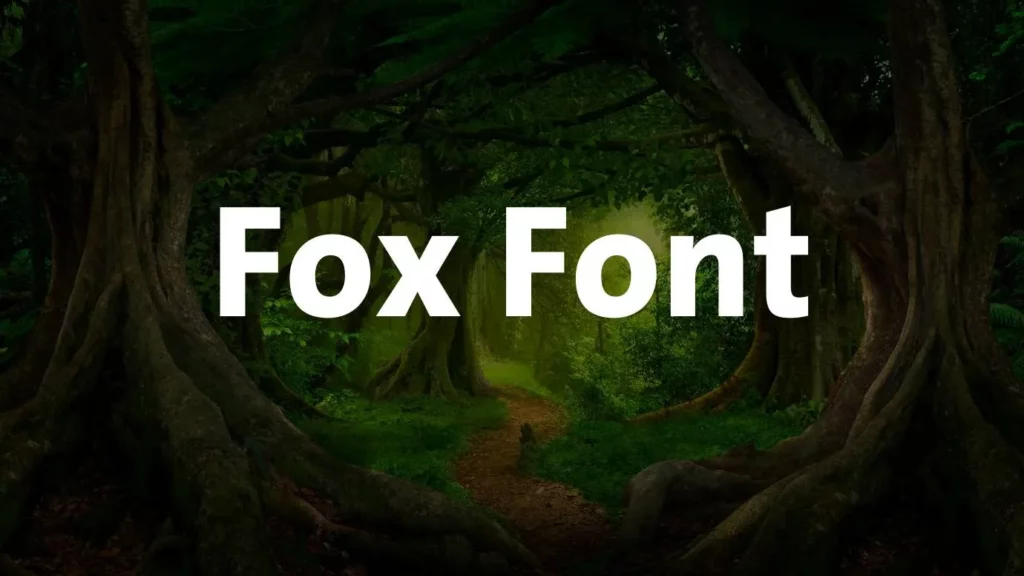
Display designs and thin corners can be created with this stunning piece. The designs are very stylish of this font. This typeface style also looks very close
Fox Logo Font typeface has special letters with an elegant look that are very useful for designers. Because of the strong and unique characters, it is often used for titles and headlines. This bold and sturdy font belongs to the Sans- Serif Font family. You can download this font in OTF and TTF file versions.
Display designs and thin corners can be created with this stunning piece. The designs are very stylish of this font. This typeface style also looks very close to the public sans font.
It comes in a unique weight, making it suitable for a variety of designs. Designers can create text graphics and name designs using its generator tool. Also, its unique text style makes it a good choice for creating nice designs.
Fox Logo Font is designed by Fox News Media it is sans serif text style.